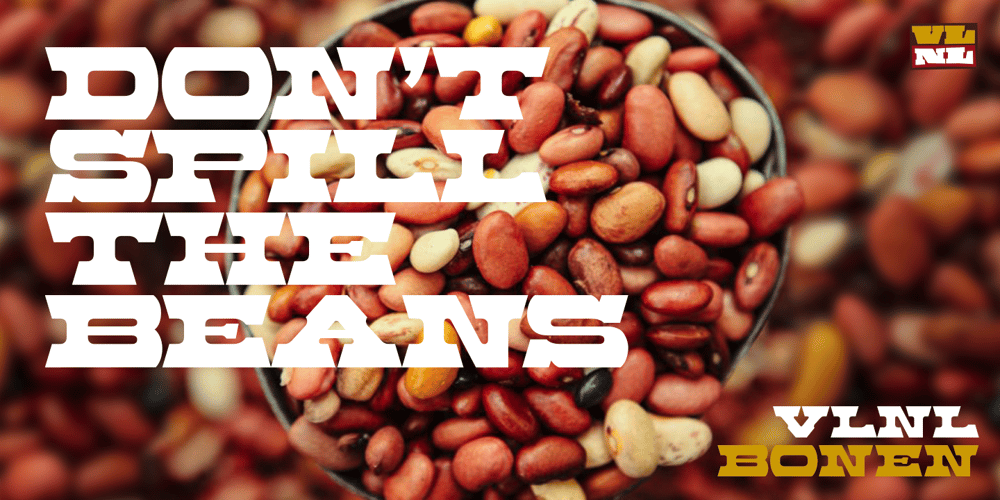
VLNL Bonen
VLNL Bonen font
VLNL Bonen Font Family was designed by Donald Beekman and published by VetteLetters. VLNL Bonen contains 1 styles and family package options. While sketching for a music project logo, Donald DBXL Beekman looked at several wood type alphabets as a starting poing. One of these was No.120, patented in 1880 by William Hamilton Page. With its distinct diagonally cut serifs and round shapes cut off at top and bottom, it bore just the right feel for the project. DBXL digitized the alphabet, adding all characters needed for a full set. During this process all shapes were widened, tweaked and streamlined to enhance consistency and rhythm along the whole font. VLNL Bonen is an all-caps display font with a very specific western cowboy or circus look. For instance burger or barbecue grill restaurants would do well with this one. We can easily see it shine on a festival flyer or poster as well, and not just country & western festivals. VLNL Bonen is suitable for any ‘big’ use that needs to stand out of the crowd. Bonen is the Dutch word for beans, a world wide source of nutrition and proteins it comes in a multitude of shapes, colours and sizes. Beans are also the most eaten foods in a cowboy’s diet along the trail. Available in abundance and easily preserved and transported, many recipes on the cattle drives in the American Wild West used beans. Think of chili, mashed beans with biscuits and bean soups. “Keep them doggies movin’, cowboy!”